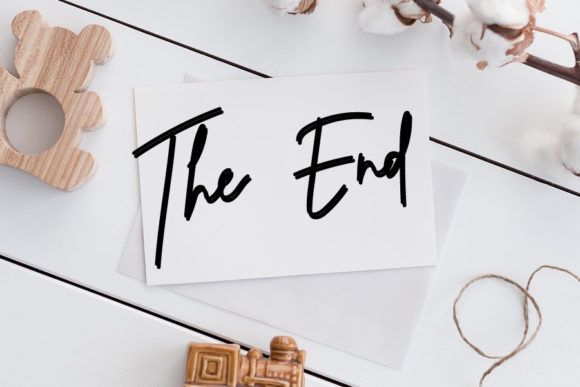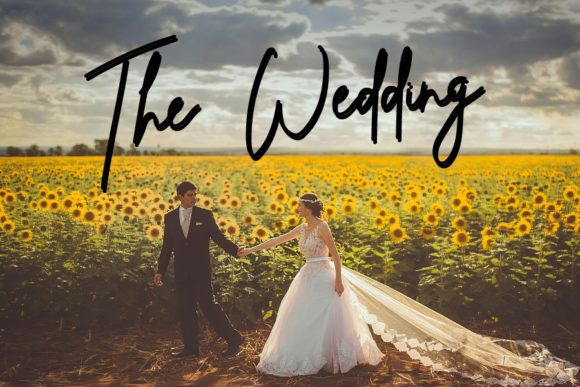
Photography Font
db-ku.com - Script & Handwritten -- Photography is a thin lettered and fashionable script font. No matter the topic, this font will be an incredible asset to your fonts’ library, as it has the potential to elevate any creation.